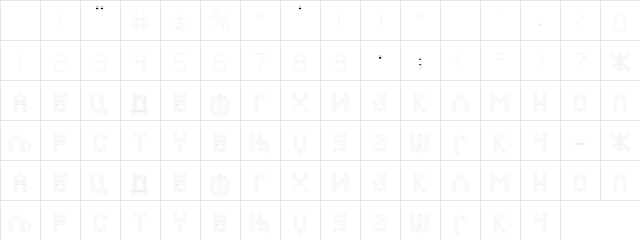
Complete X_Circles UltraBold glyph index. Displaying only characters natively supported by X_Circles UltraBold font.
X_Circles is a composed and adaptable typeface that performs quietly and consistently across a wide range of design contexts. Its bold stroke weight gives it real presence on the page.